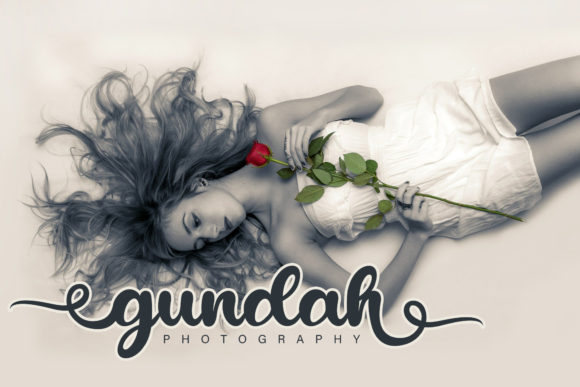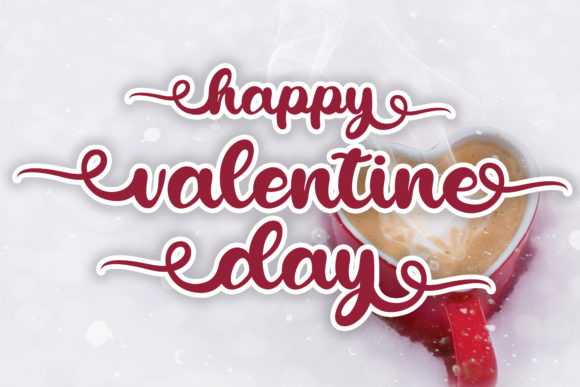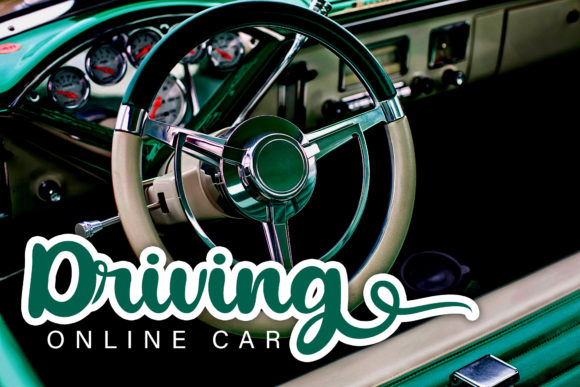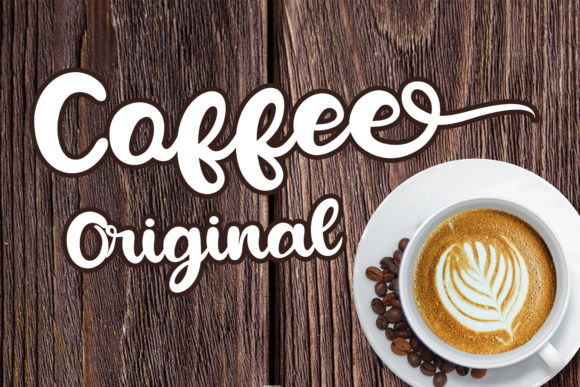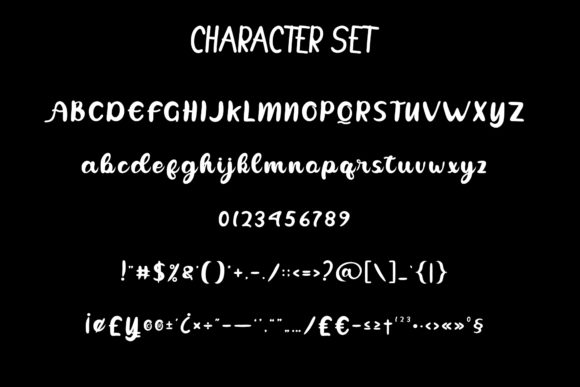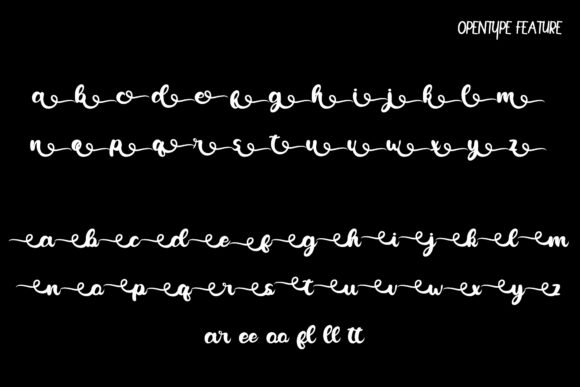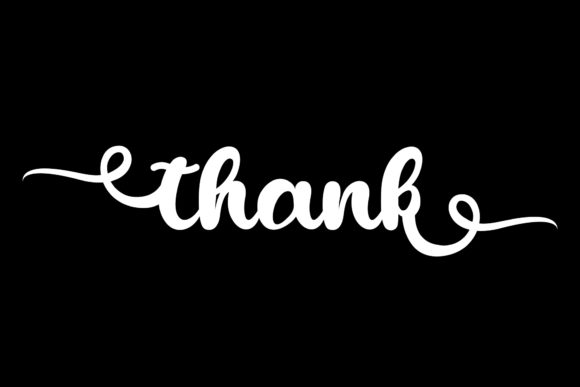
Heyline Font
About Heyline Font
Heyline is a bold beautiful script which is bursting with character and warmth. It comes with many stylistic alternates and ligatures and can be used in a wide range of designs – from branding to wedding invitations, the only limit is your imagination!